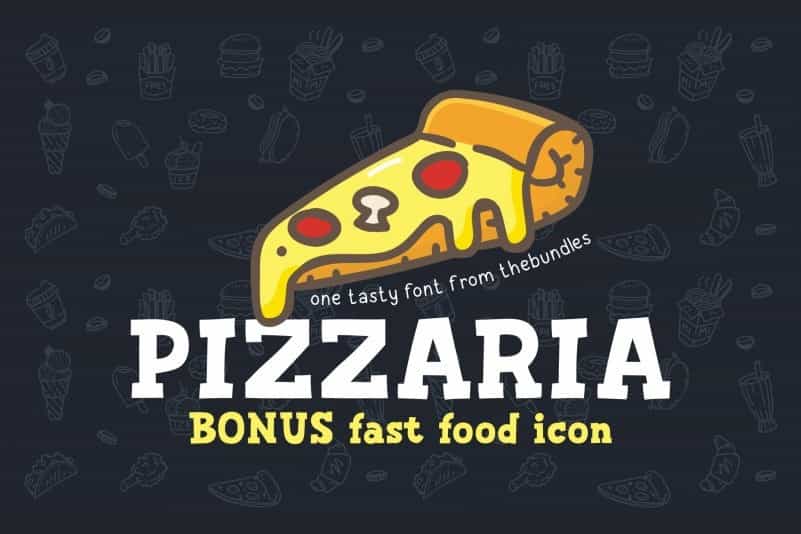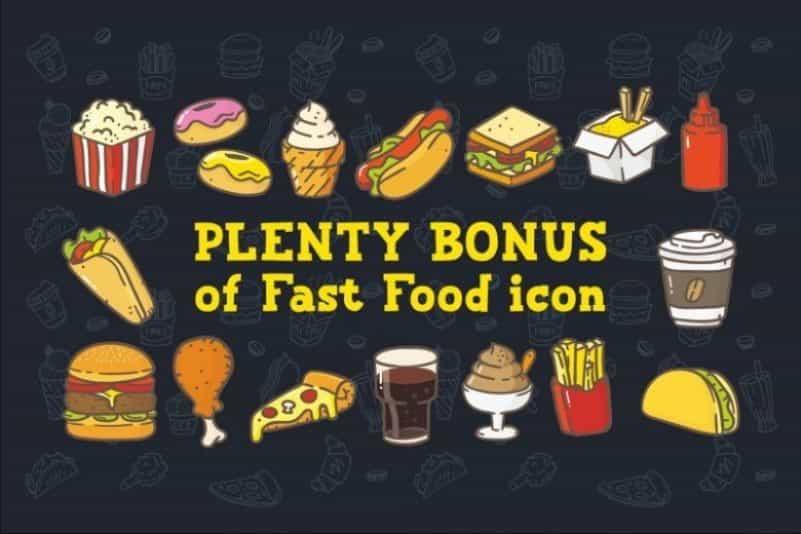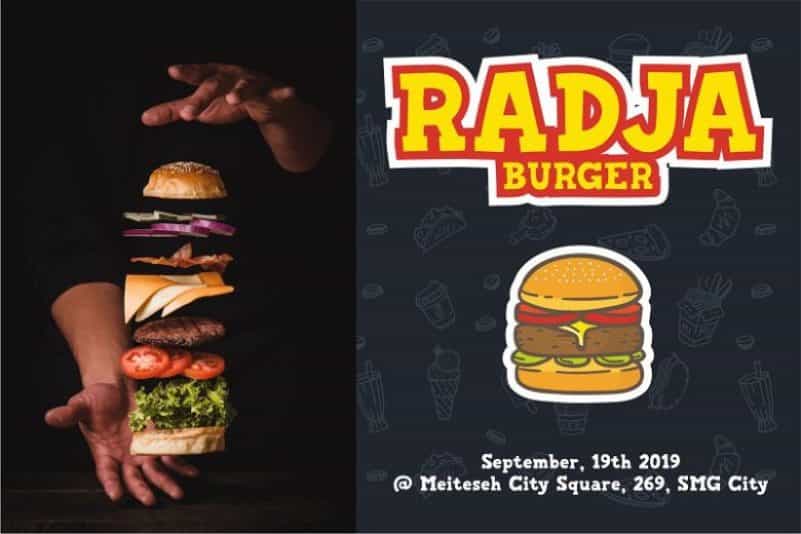
PIZZARIA Font is the slab serif font that has been designed with the reference of slab serifs. The features of PIZZARIA Font include; the use of the stroke contrast, the square shapes of the rounded letters and a concentration on the simple and professional looks.